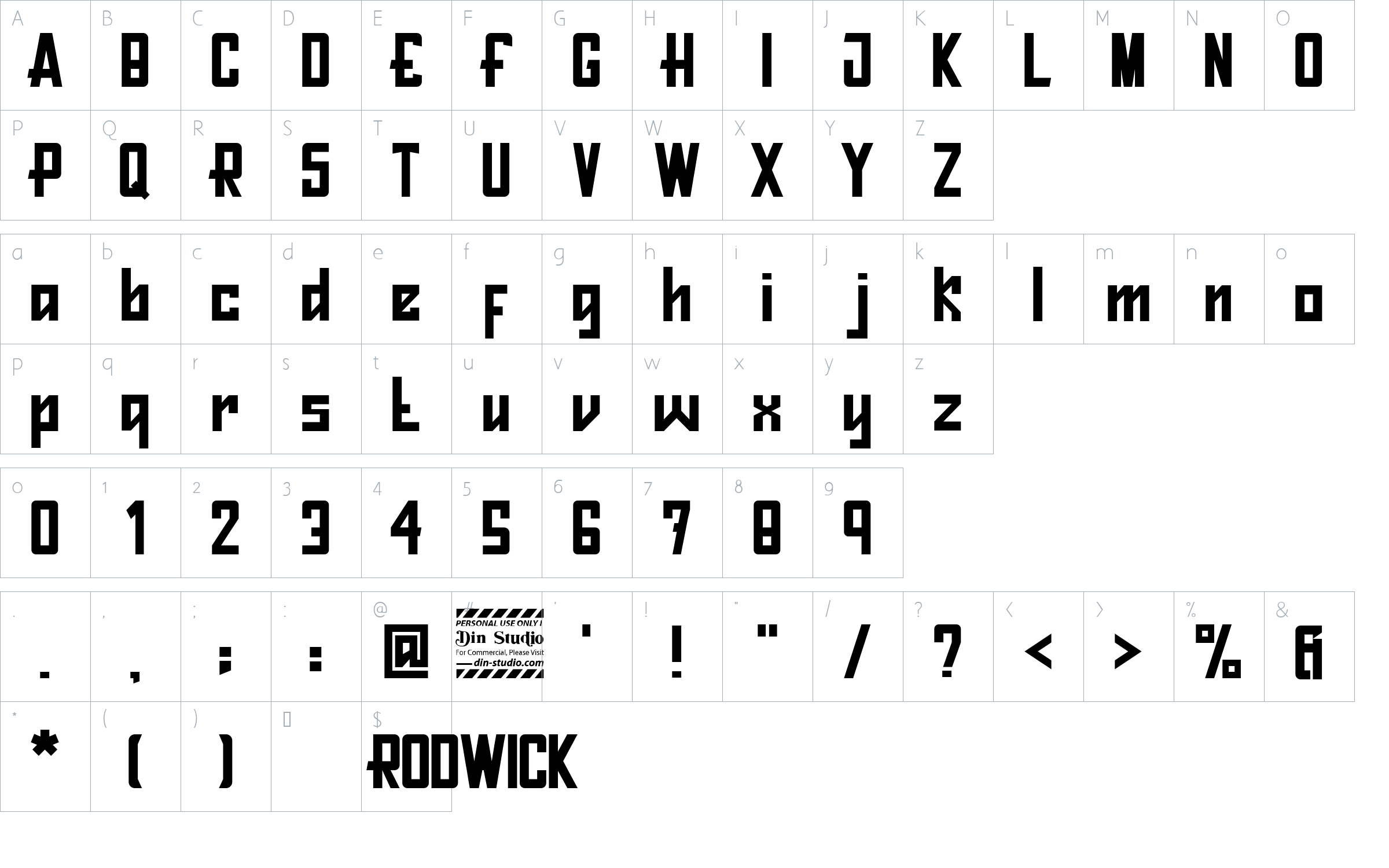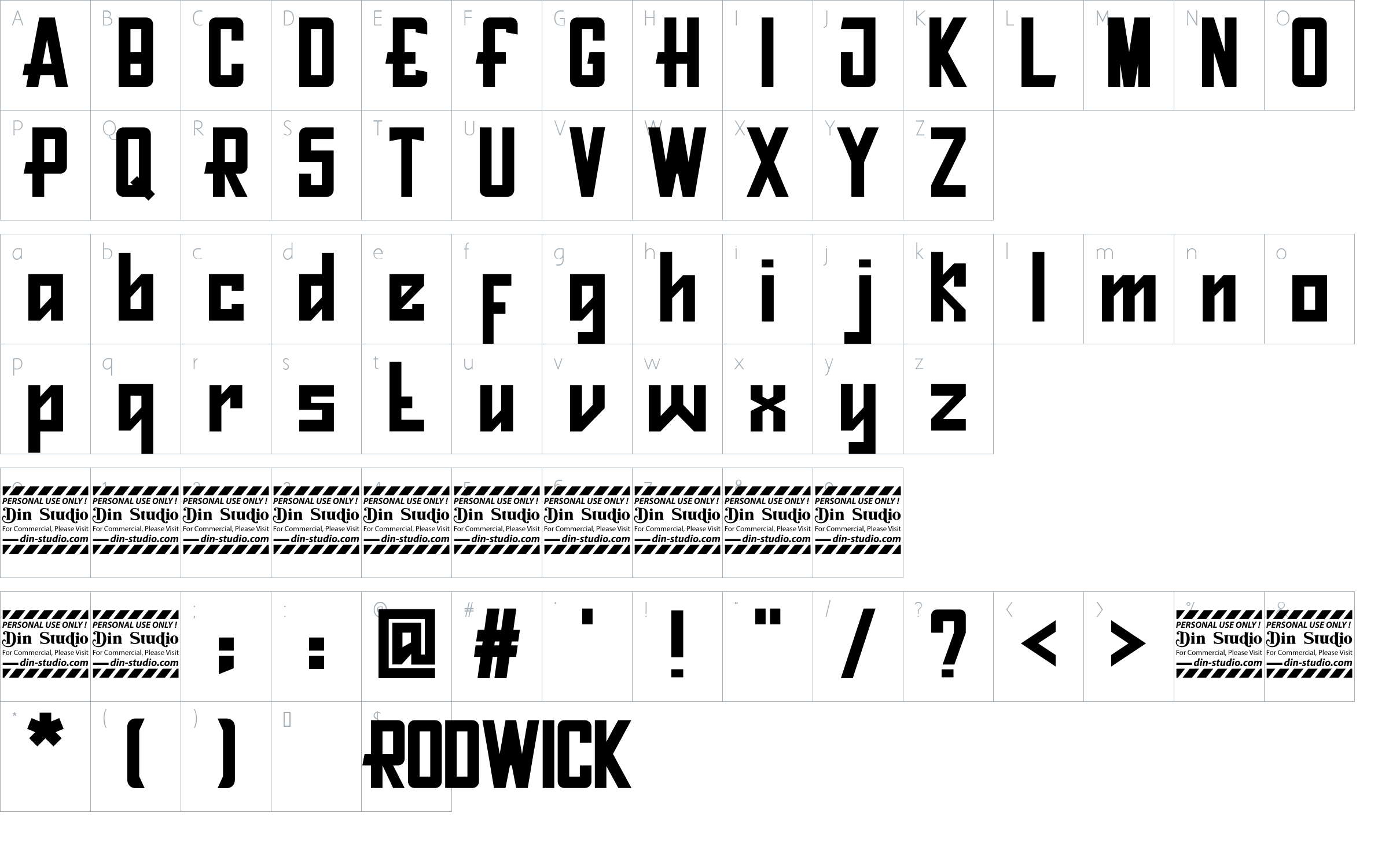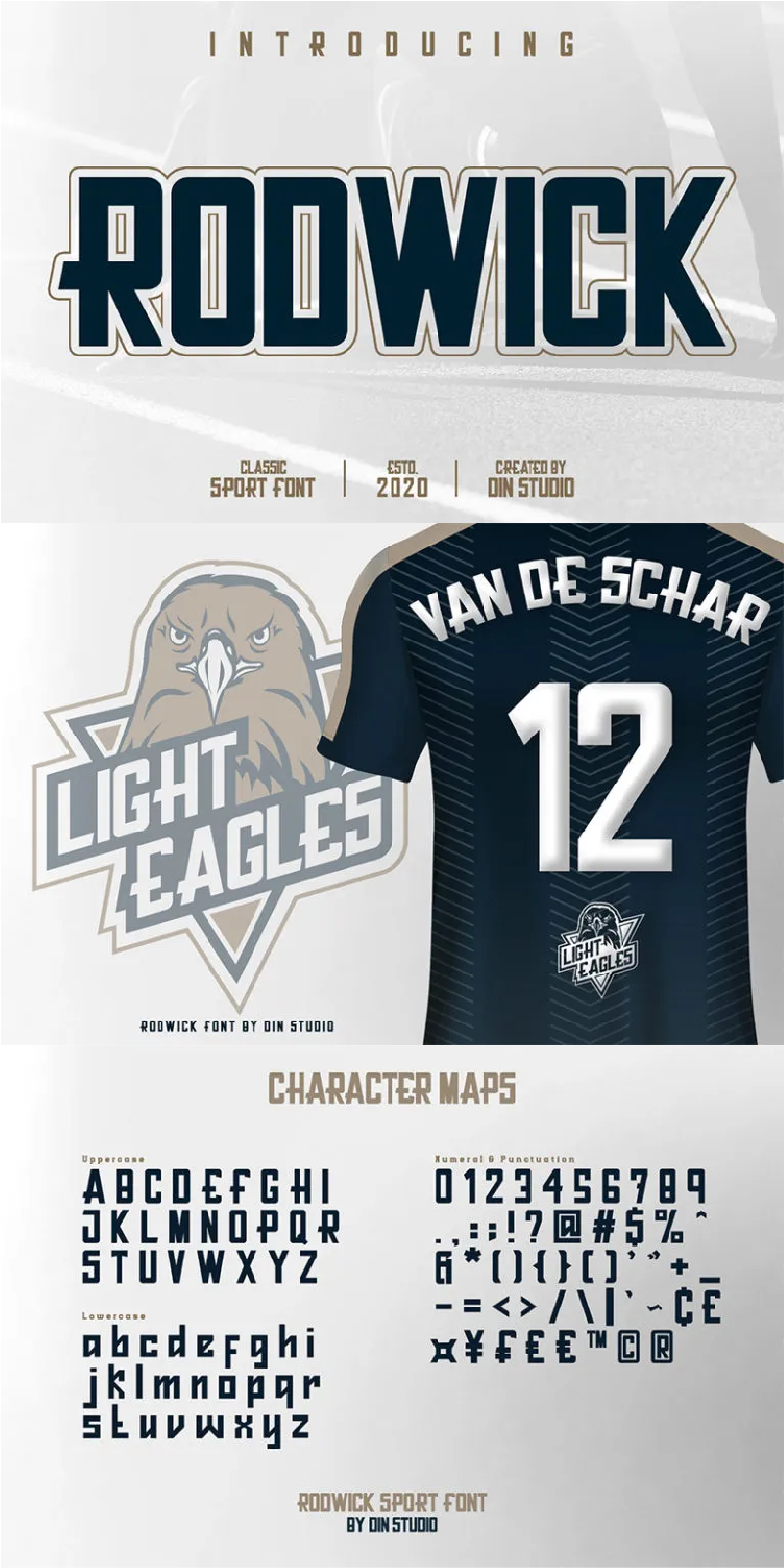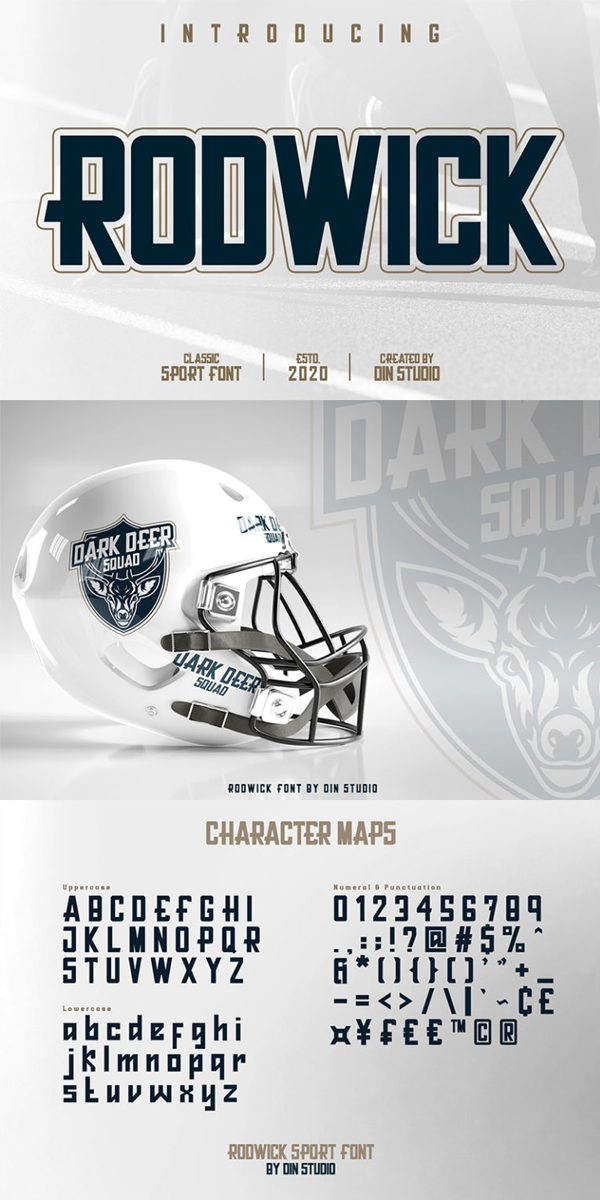
Rodwick Font
About Rodwick
Rodwick is a classic sport font. Made for any professional project especially that related to the sports. Beside that, this font can be used for printing, branding and quotes. See the previews above to get some inspiration on how you can use them. Happy Designing!